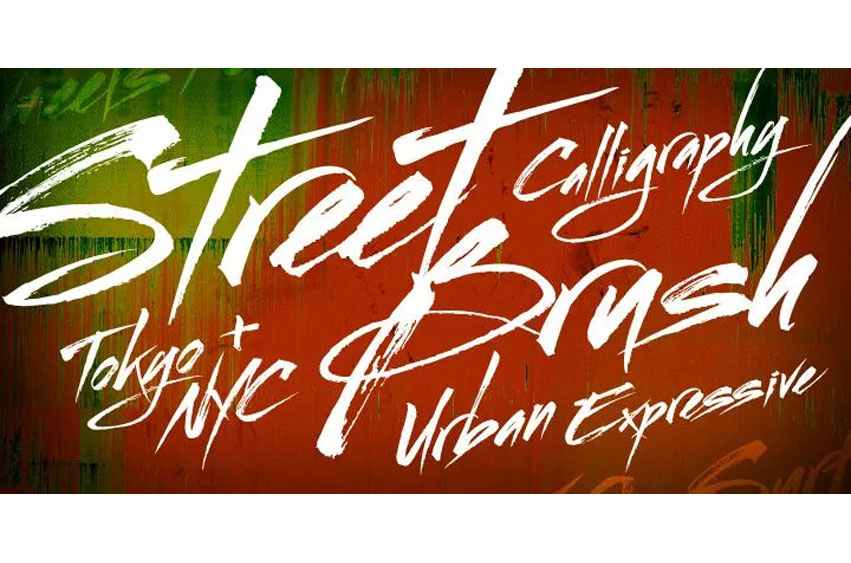
Streetbrush Font
Streetbrush Font My senior year in high school saw me as a guy who was always covering notebook pages with layers of graffiti stickers starting from the margins and eventually filling every inch on each page. With the help of practice and experiments, I acquired a talent for rapid and expressive hand movement which later on turned into brushwork.
Ever since 2011 this particular style of typography has been my choice for many projects and I have developed it into a signature illustration style. The last and the most recent thing that was done using this method is Streetbrush. This brushing style emerged from a randomness of repeating letters hundreds of times on paper with a brush.